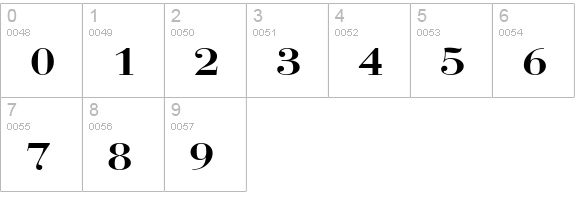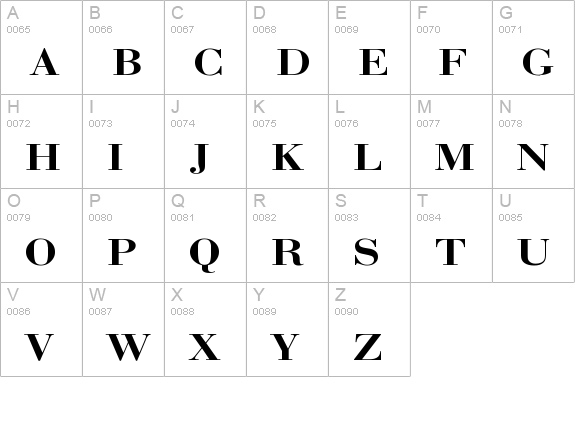
BodoniExt-Bold Font Details
BodoniExt-Bold is a strong, high-contrast variant in the BodoniExt typeface family \xE2\x80\x94 well suited to headlines, attention-grabbing titles, and strong calls-to-action.
BodoniExt-Bold is a striking and elegant typeface that exudes sophistication and modernity. With its clean lines, sharp serifs, and bold strokes, this font commands attention and makes a statement in any design project. Perfect for headlines, titles, and branding materials, BodoniExt-Bold is a versatile choice for designers looking to add a touch of class to their work. What sets BodoniExt-Bold apart is not just its timeless design, but also its accessibility. This premium font is available for free download at FontsMarket.com, making it easily accessible to designers and creatives looking to elevate their projects without breaking the bank. Whether you're working on a print publication, website design, or branding campaign, BodoniExt-Bold is sure to add a touch of sophistication and style to your work. Download it today and see the difference it can make in your designs.